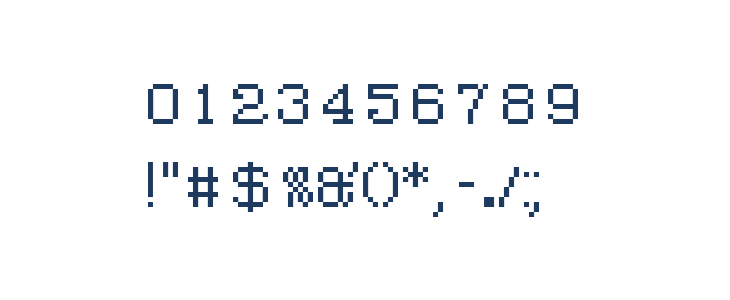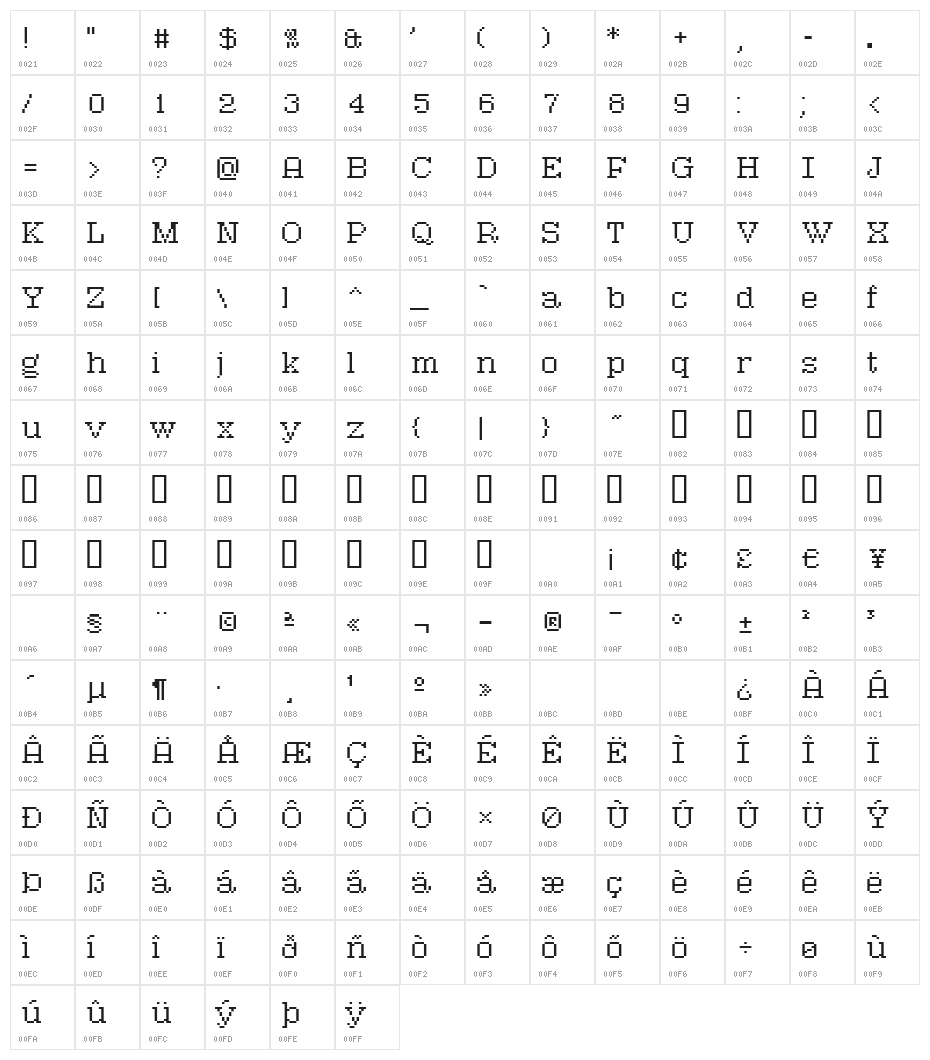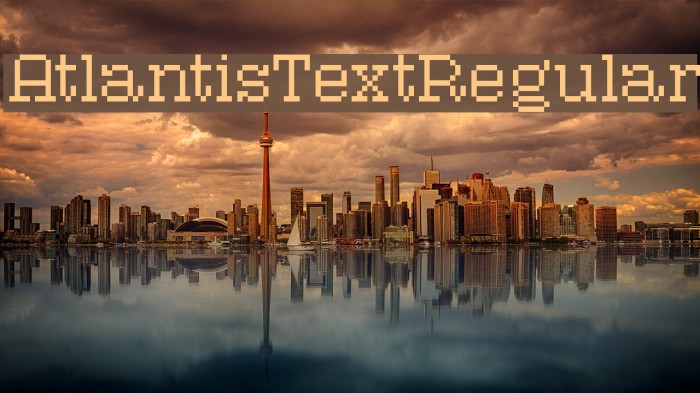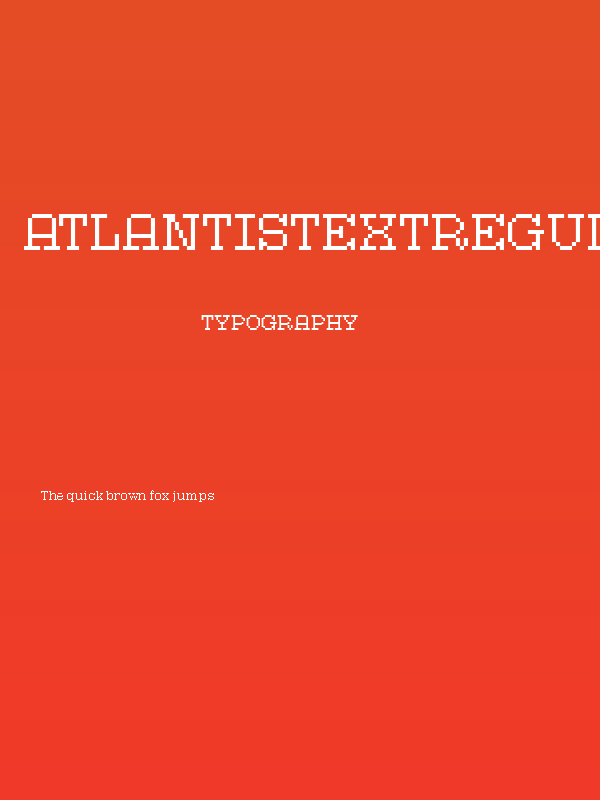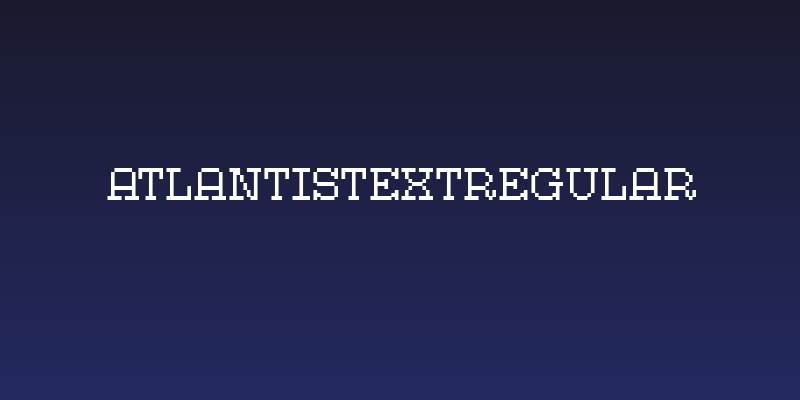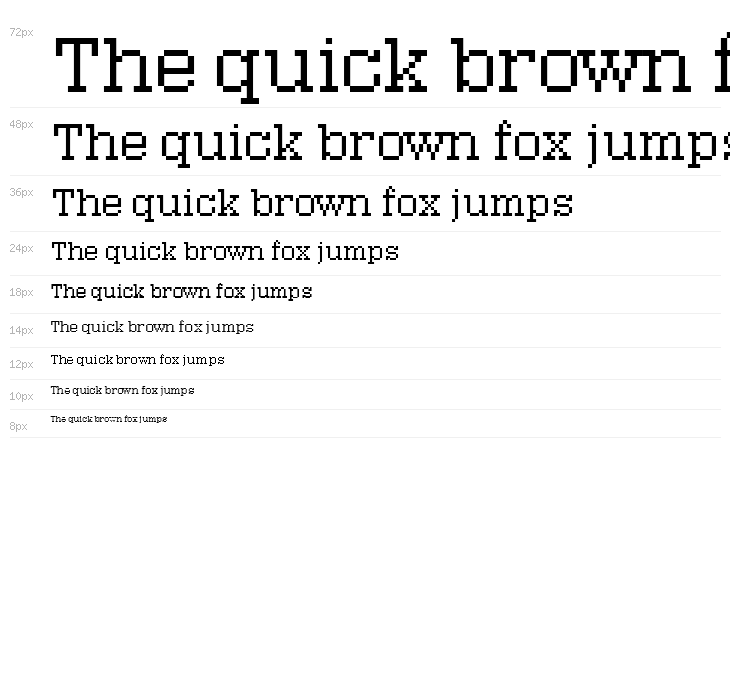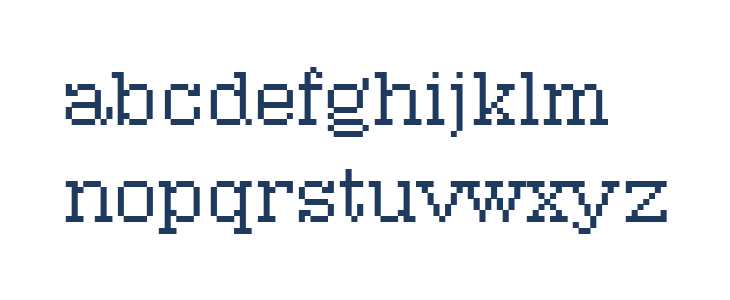
AtlantisTextRegular Font
AtlantisTextRegular Description
This font features a pixelated, blocky design reminiscent of early digital or video game typography. Each character is constructed with a grid-like precision, giving it a distinctly retro and digital aesthetic. The uppercase and lowercase letters maintain a consistent height and width, contributing to a uniform appearance. Numbers and special characters follow the same pixelated style, ensuring cohesion across all glyphs. The font's design is straightforward, with no additional embellishments or curves, emphasizing its digital roots. This style is particularly effective for projects that aim to evoke nostalgia or a tech-oriented theme.
| Overall Style | Retro, Digital |
| Use Case | Logos, Headlines, Digital displays |
| Proposed Projects | Ideal for video game design, retro-themed posters, digital art projects, and tech-related branding. |